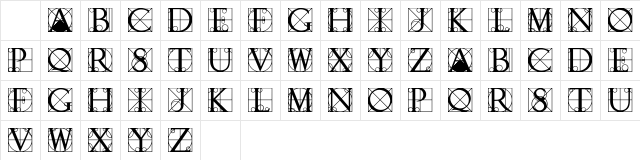
TypographerCapsSSK Regular
Design Context for TypographerCapsSSK
TypographerCapsSSK is a composed and adaptable typeface that performs quietly and consistently across a wide range of design contexts.